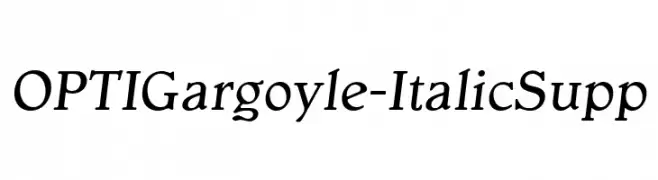
An elegant italic serif font with a classic and sophisticated style.
An elegant serif font with a classic italic style, perfect for sophisticated designs.
An elegant italic serif font with smooth, flowing lines and a refined appearance.